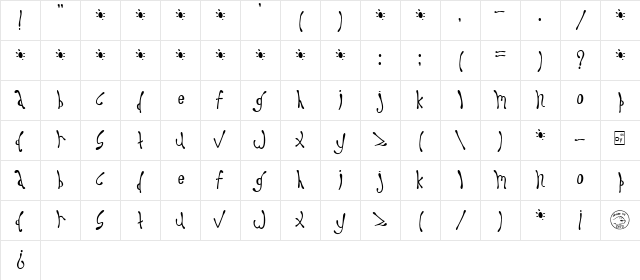
Dysprosium Regular
Foundry: [Divide By Zero] Fonts
Designer: Tom Murphy 7
Design Context for Dysprosium
Dysprosium is a composed and adaptable typeface that performs quietly and consistently across a wide range of design contexts.